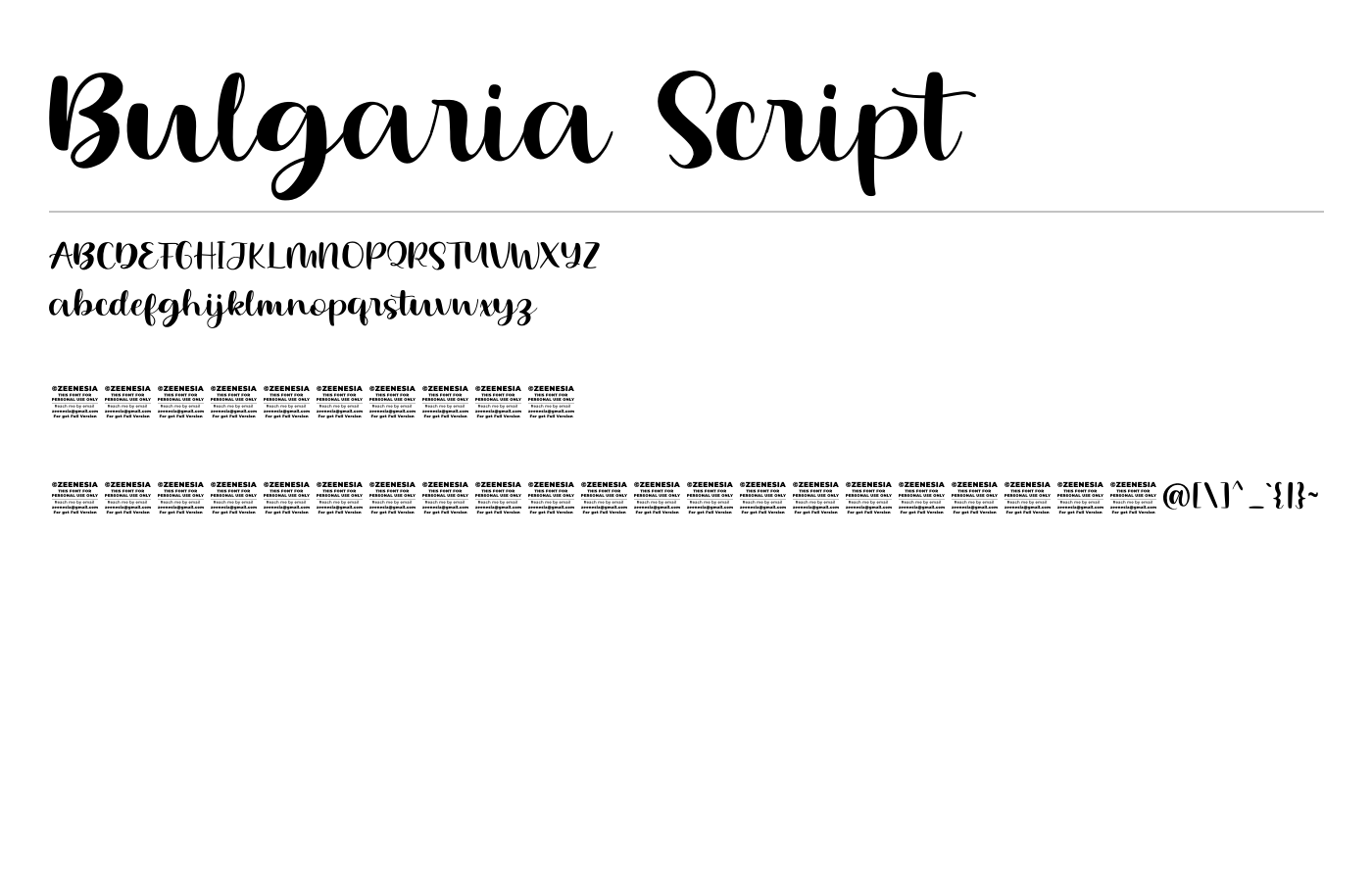
Bulgaria Script is a lively and elegant script font characterized by its smooth, flowing strokes and balanced contrast between thick and thin lines. With its thick, rounded letterforms and playful yet refined style, it conveys a warm, friendly, and inviting personality, making it an excellent choice for branding, invitations, and social media graphics. This font works especially well in creative and personal projects where a touch of charm and sophistication is desired.
Bulgaria Script Font
About Bulgaria Script Font